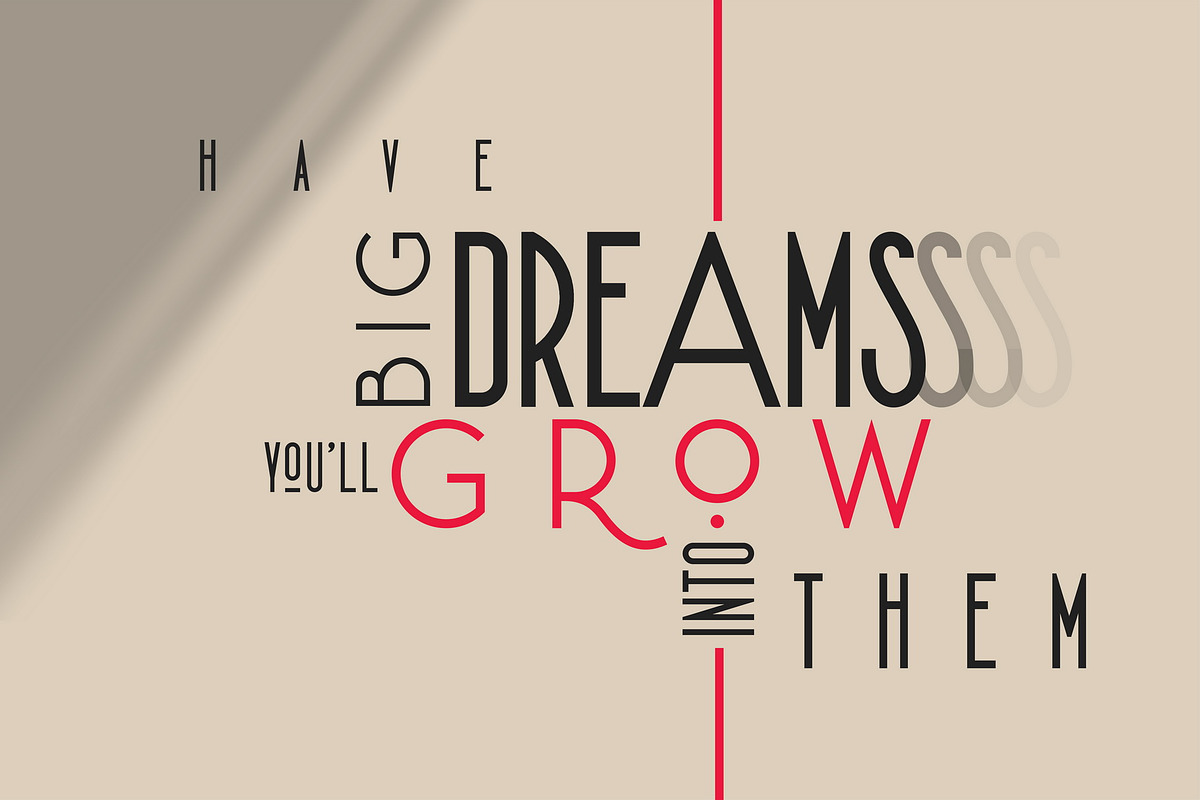
HEDONIST - Modern Sans Serif
HEDONIST is a modern sans serif. The font is represented by condensed lowercace and extended uppercase. To get an elegant and contemporary design, combine them together. The font is easy to use in various design programs or without any program.
HEDONIST is suitable for retro and modern posters, typographic prints, event design and city identity, design of books and magazines.
- Hedonist-Decorative
HEDONIST sans includes stylistic alternates for symbols: o, s, q, u, O, Q, R, &, 0, 1, 2, 3, 4, 5, 6, 7, 8, 9.